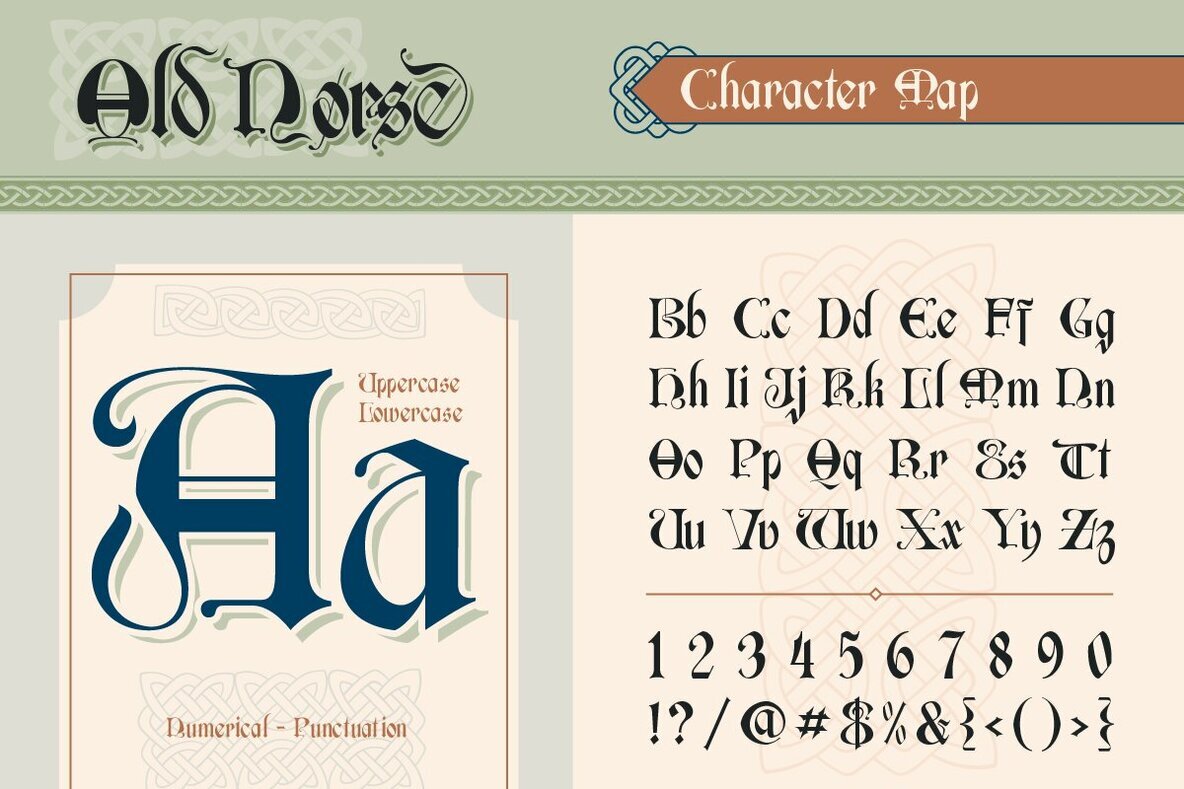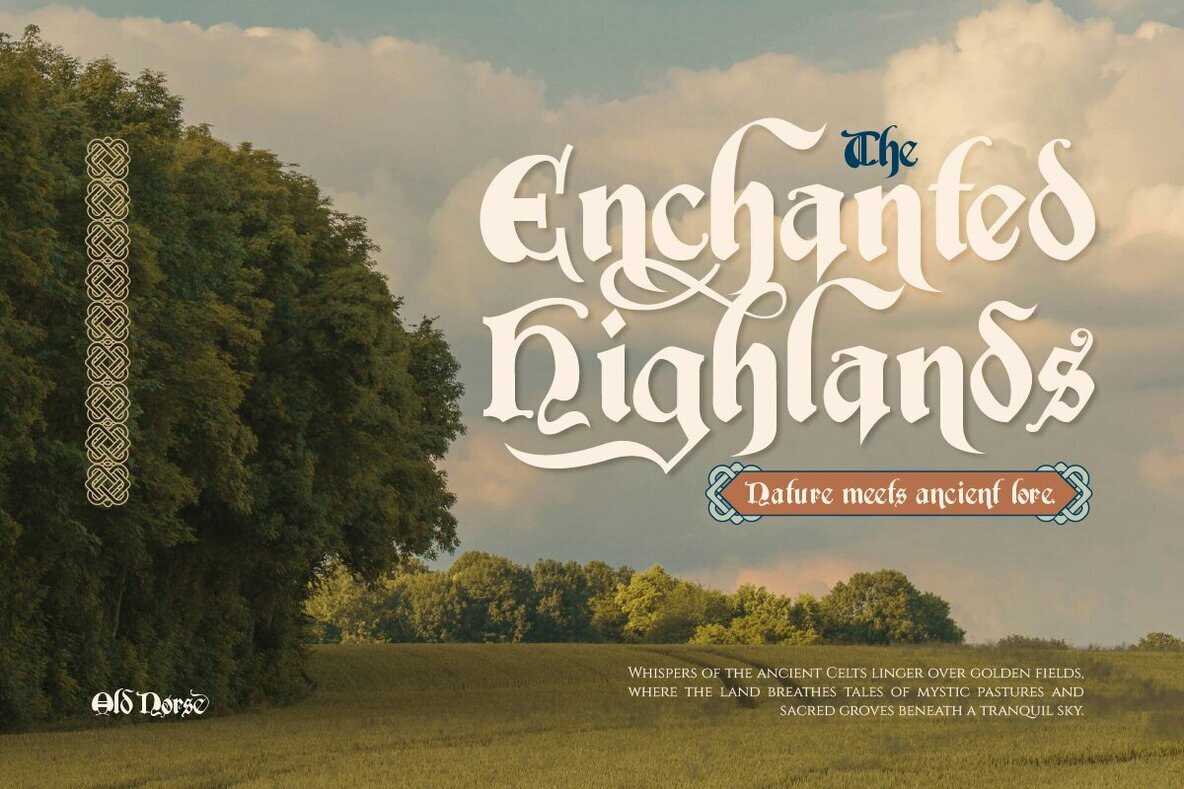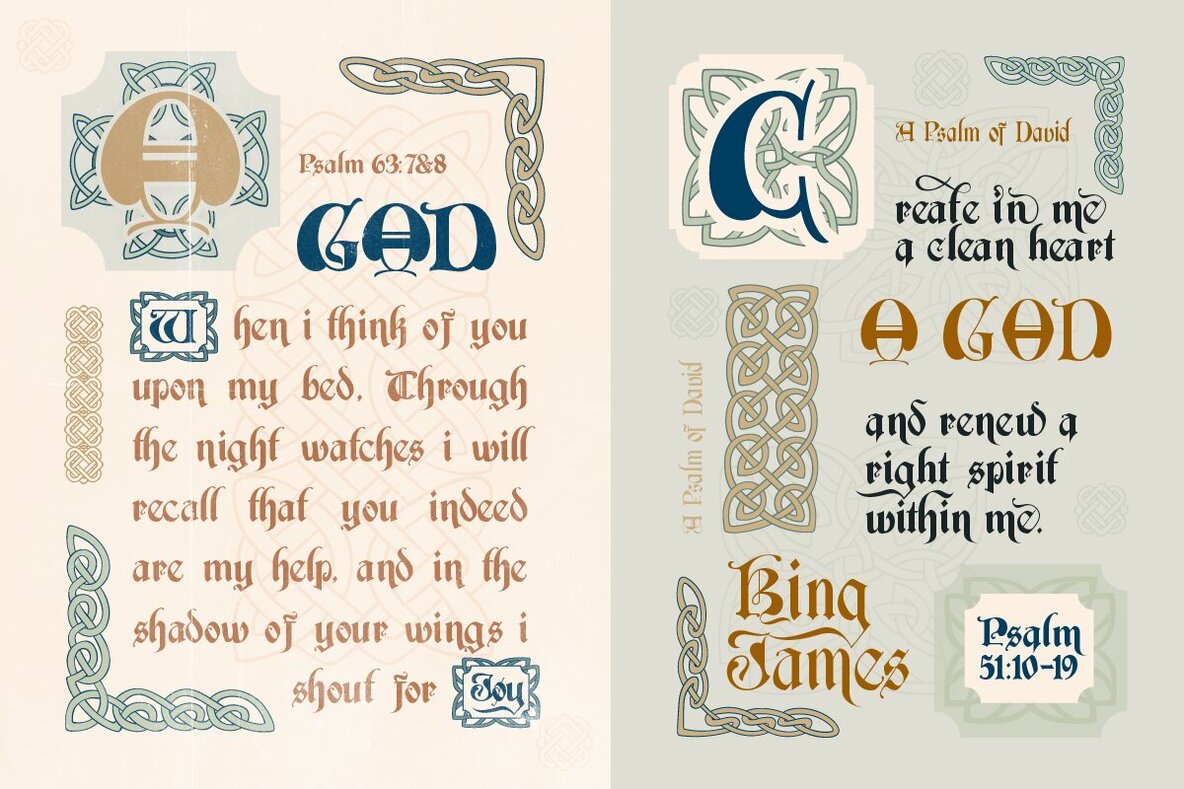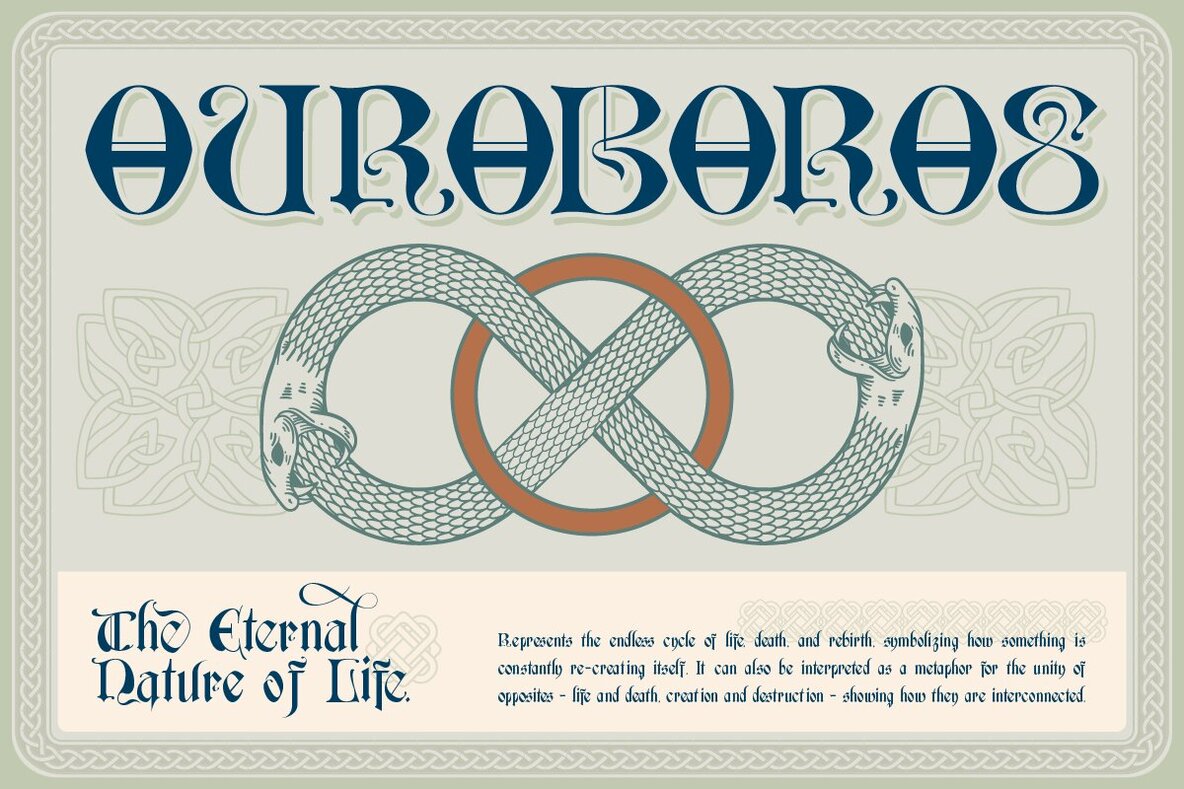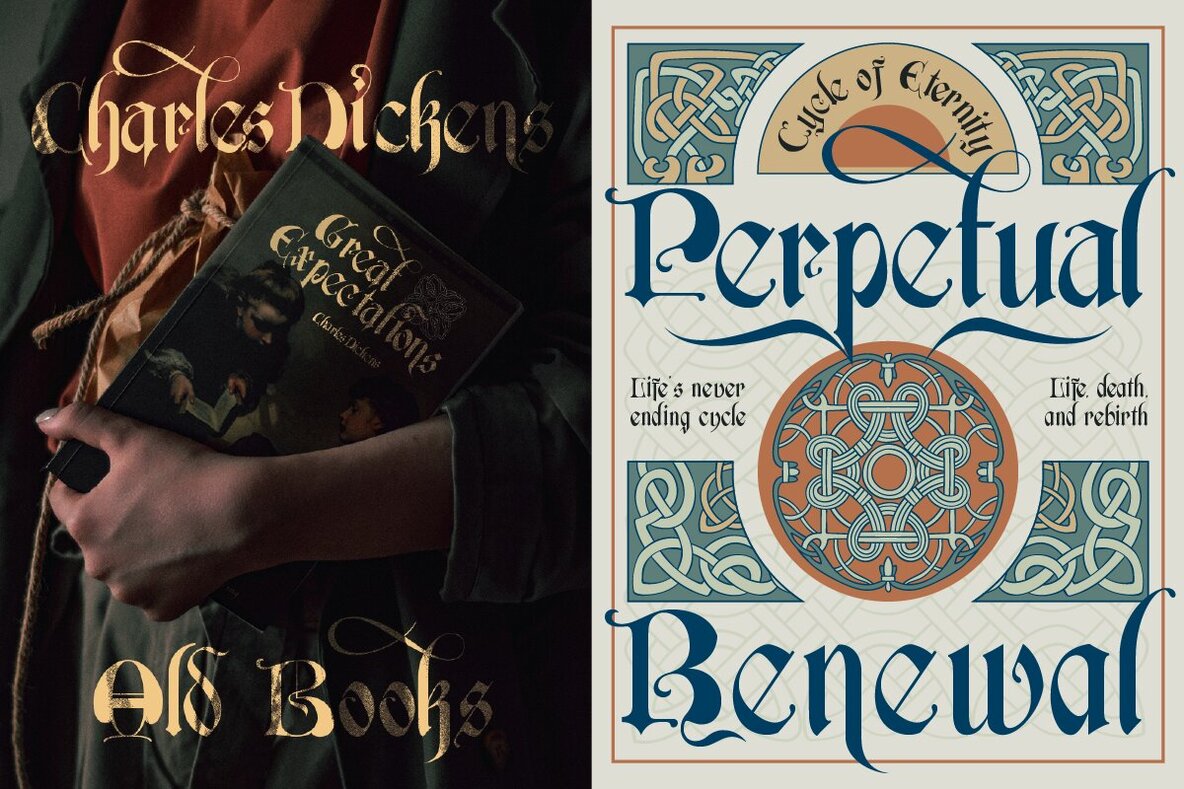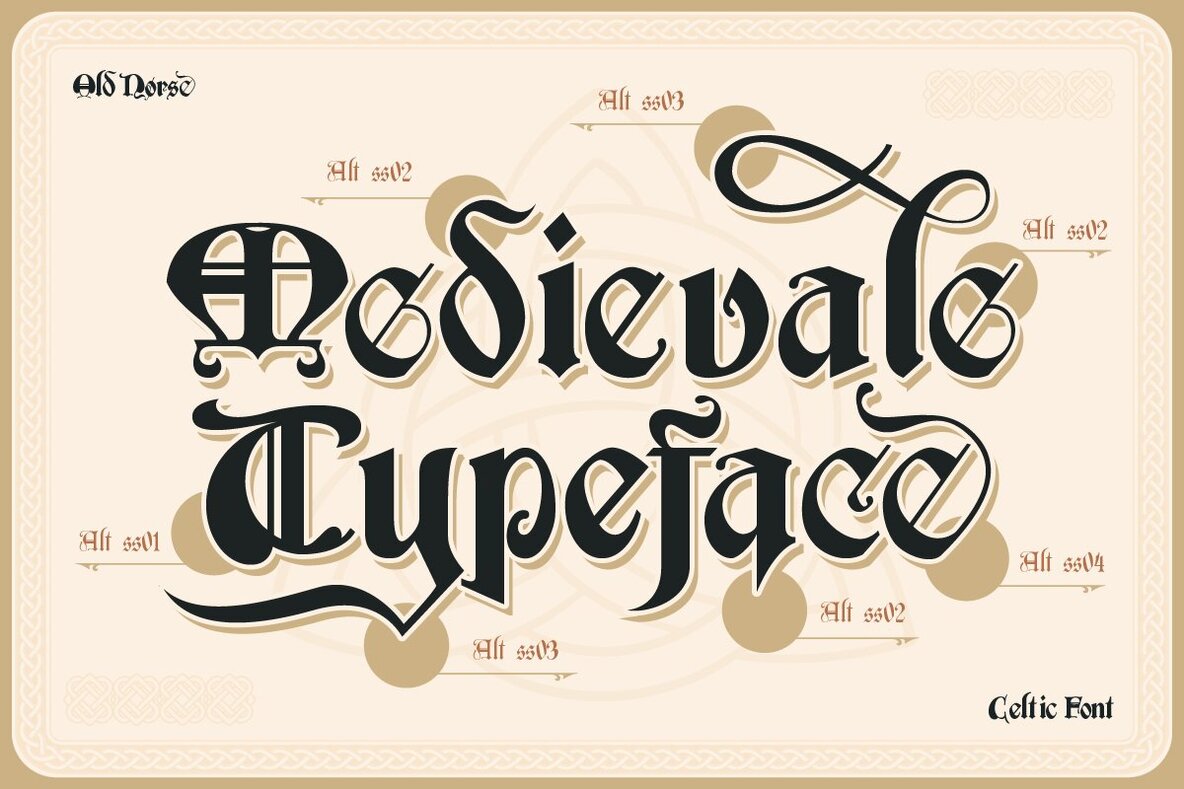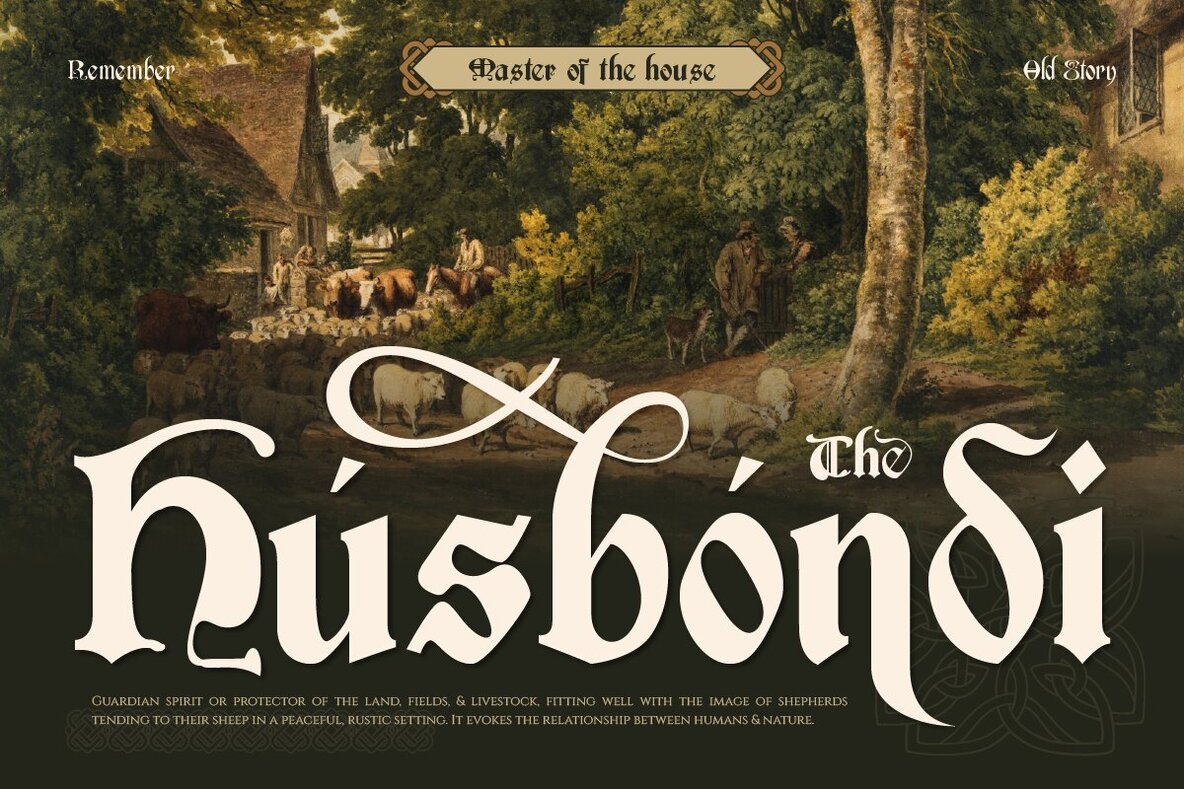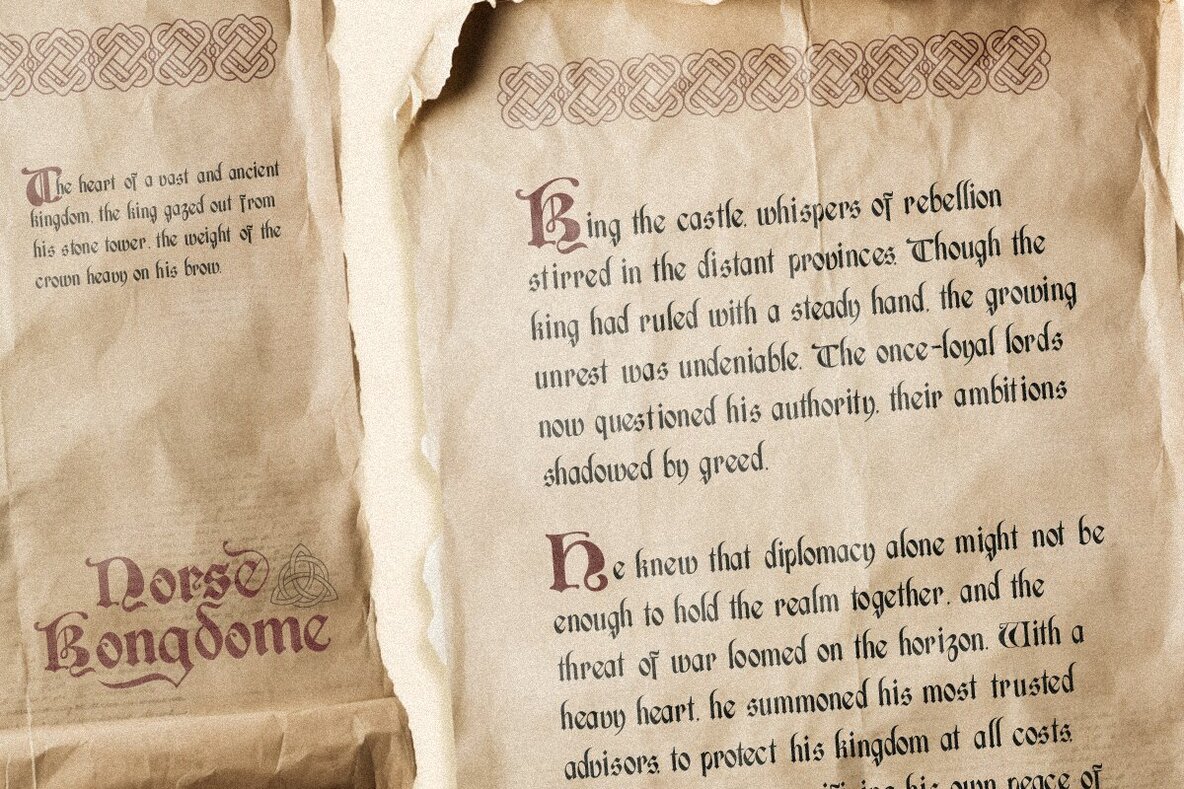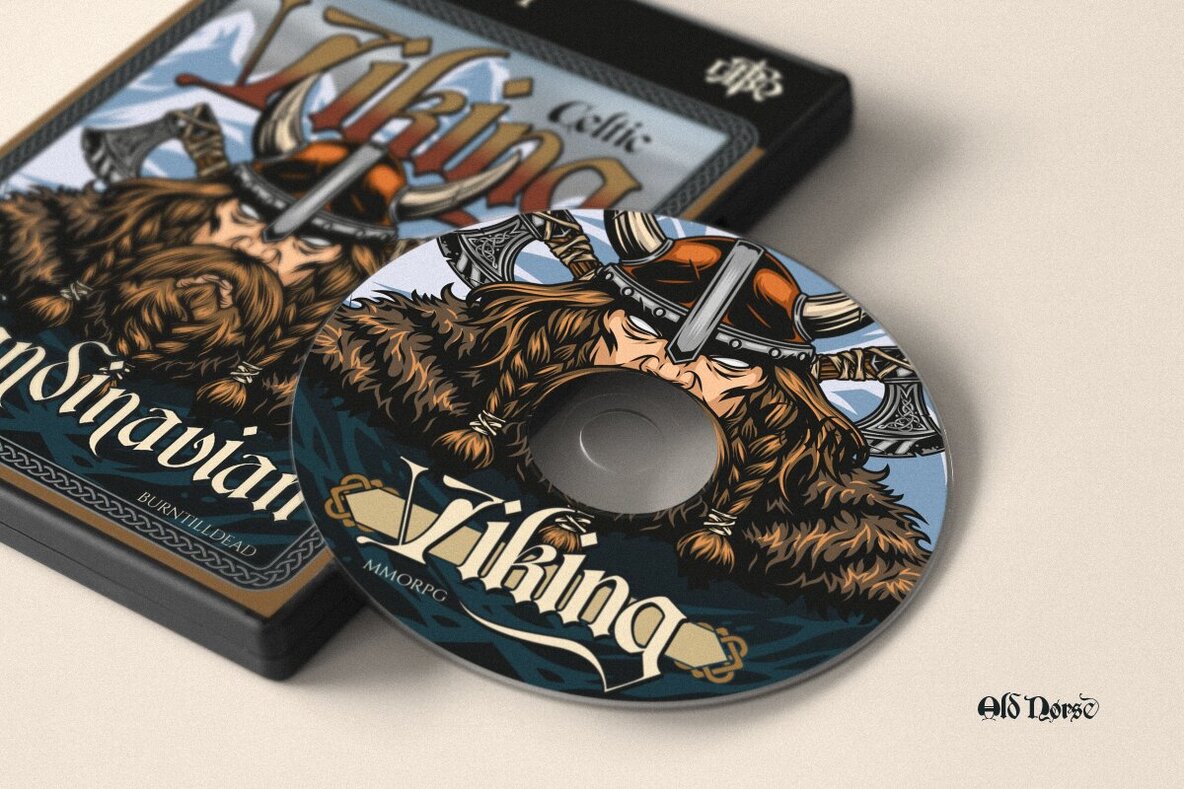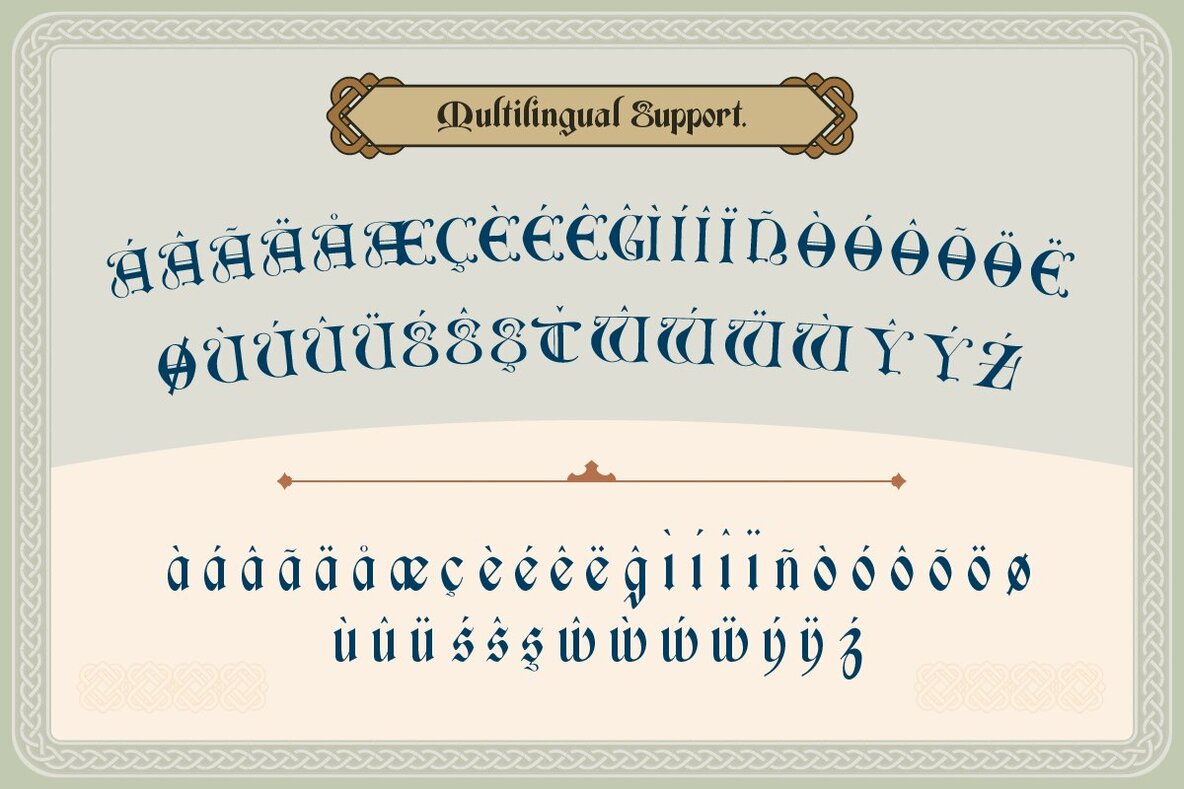
Old Norse Font
Old Norse draws inspiration from the ancient scripts and artistic traditions of the Celtic people, exuding a medieval aesthetic that encapsulates the rich cultural heritage of the Celts. This font is ideal for projects that seek to incorporate a mysterious and historical touch, making it an excellent choice for fantasy novel covers, historical event posters, and dramatic headlines or titles. Moreover, its distinctive style serves well in creating decorative text for logos, invitations, magazines, games, and apparel design.
With an array of features, Old Norse includes a complete A-Z character set in both uppercase and lowercase, along with numerals, punctuation, and alternates. Its multilingual capabilities ensure flexibility for diverse design needs, making it versatile for various applications. Whether aiming to capture the mystique of historic Celtic traditions or to add a unique medieval flair to your designs, this font stands out by bringing an ancient essence to modern creative projects.